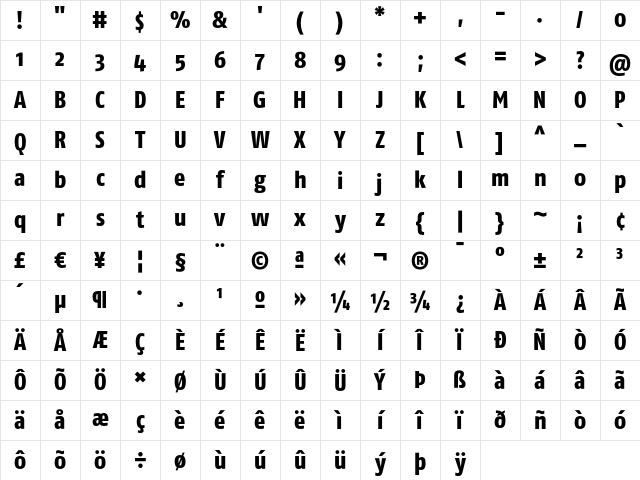
FagoCo ExtraBold Free Font
FagoCo ExtraBold
Design Context for FagoCo
FagoCo is a composed and adaptable typeface that performs quietly and consistently across a wide range of design contexts. Its bold stroke weight gives it real presence on the page.